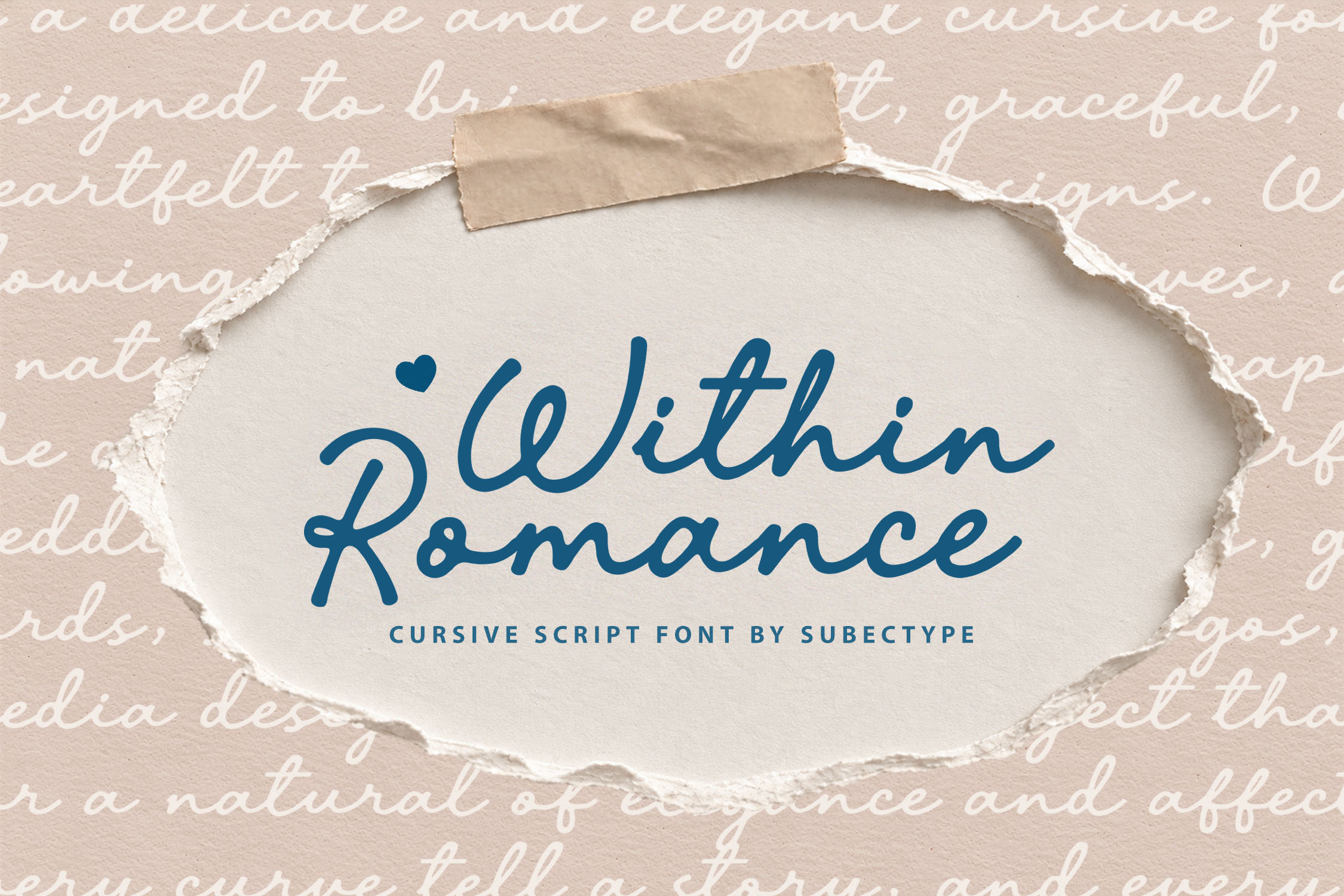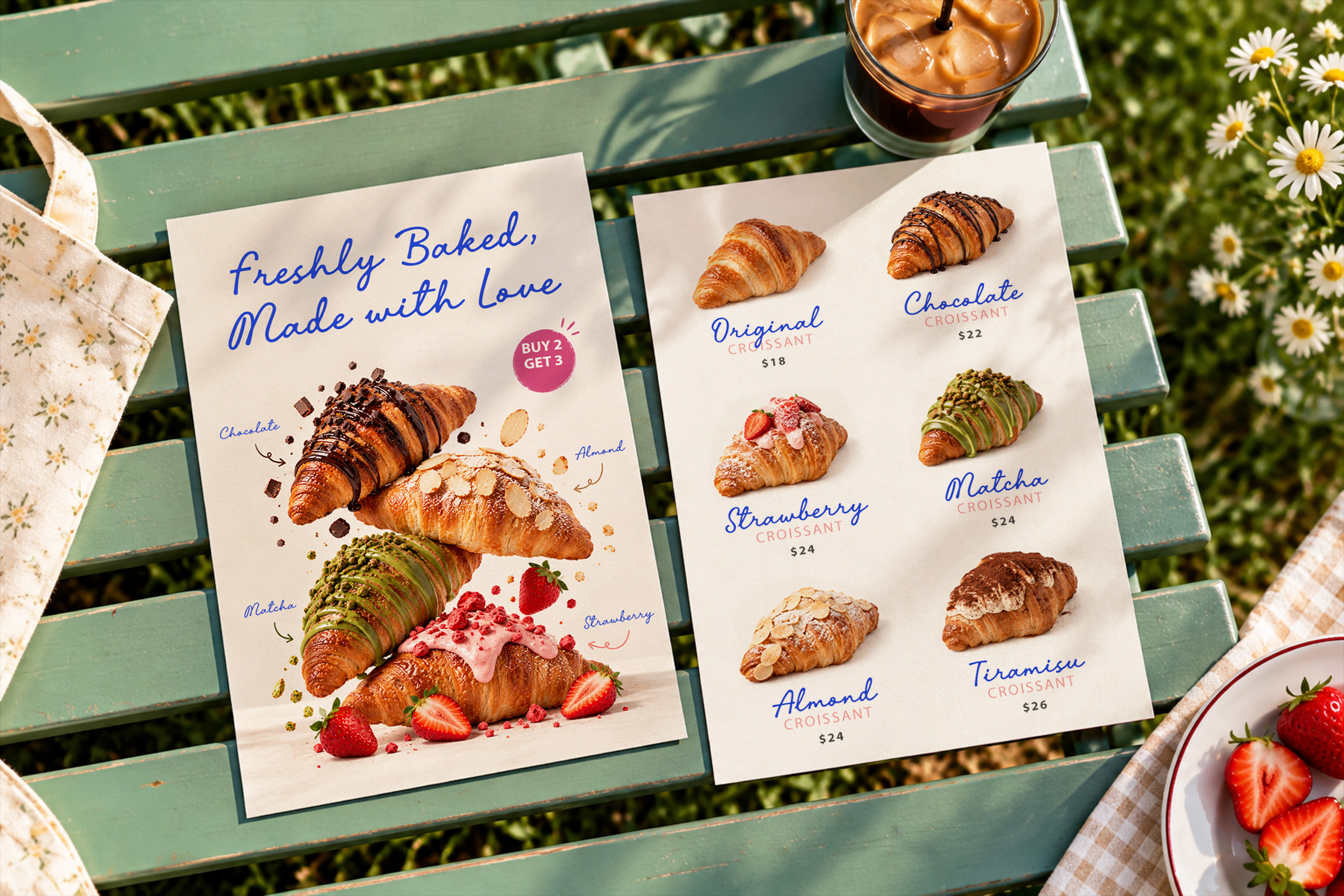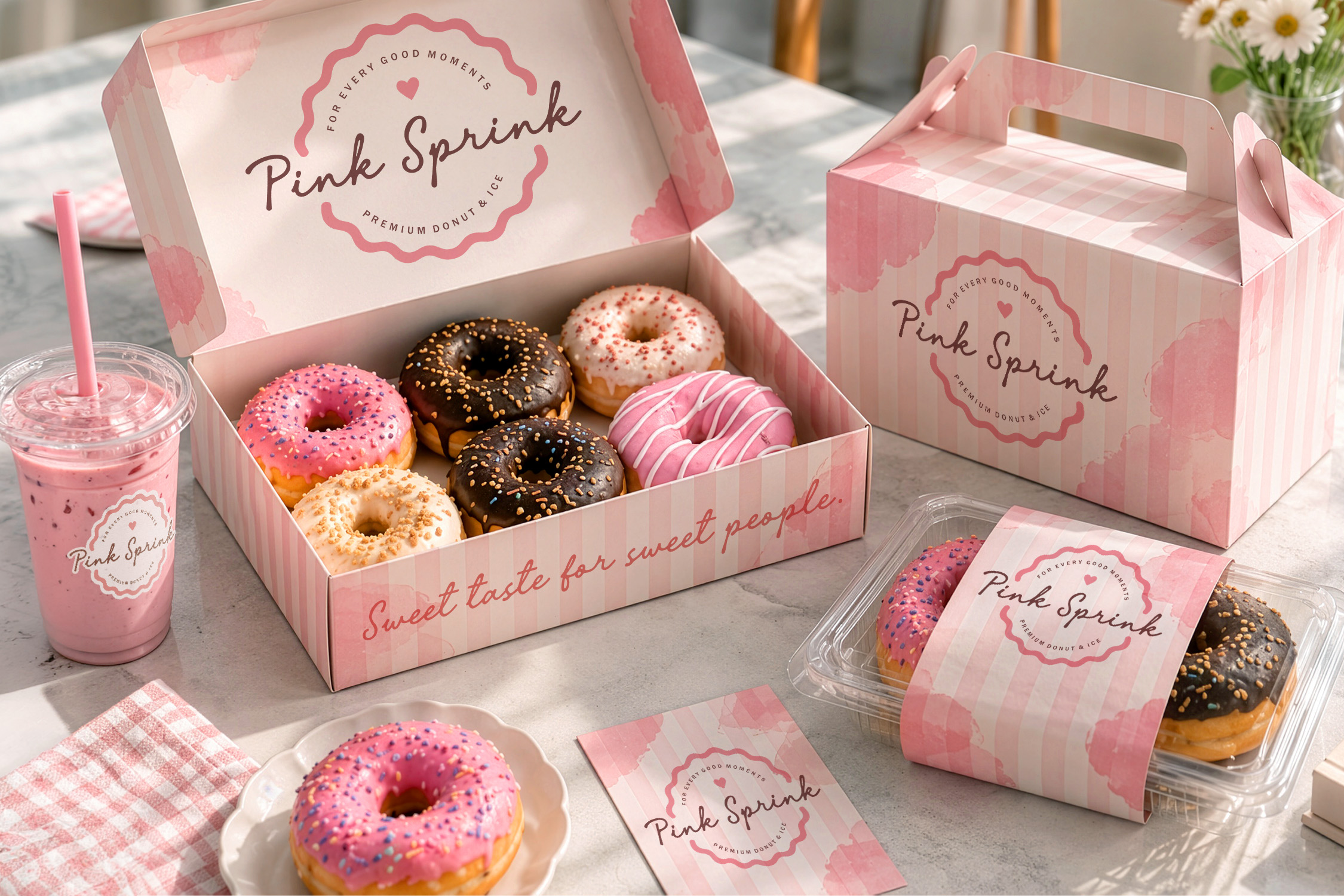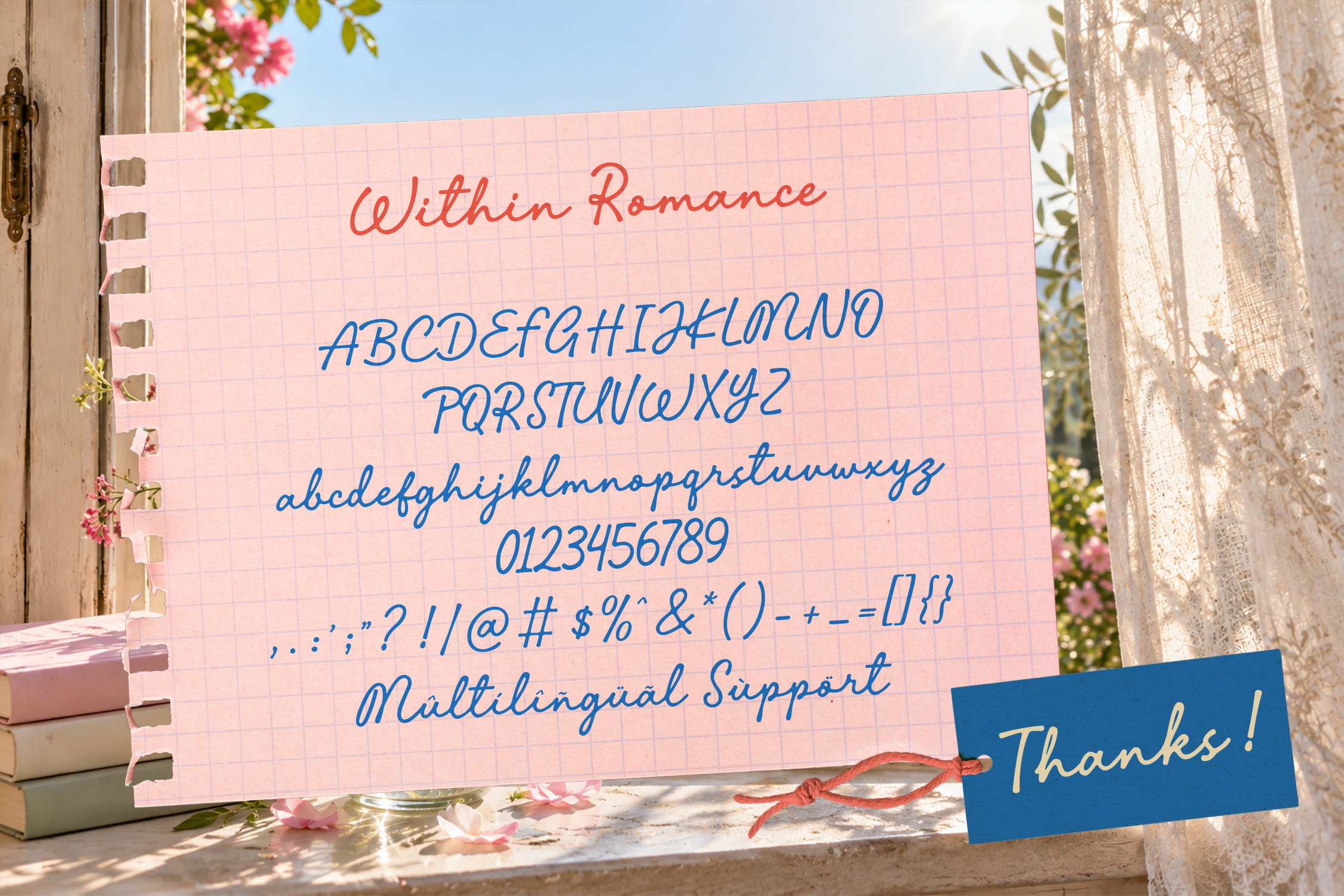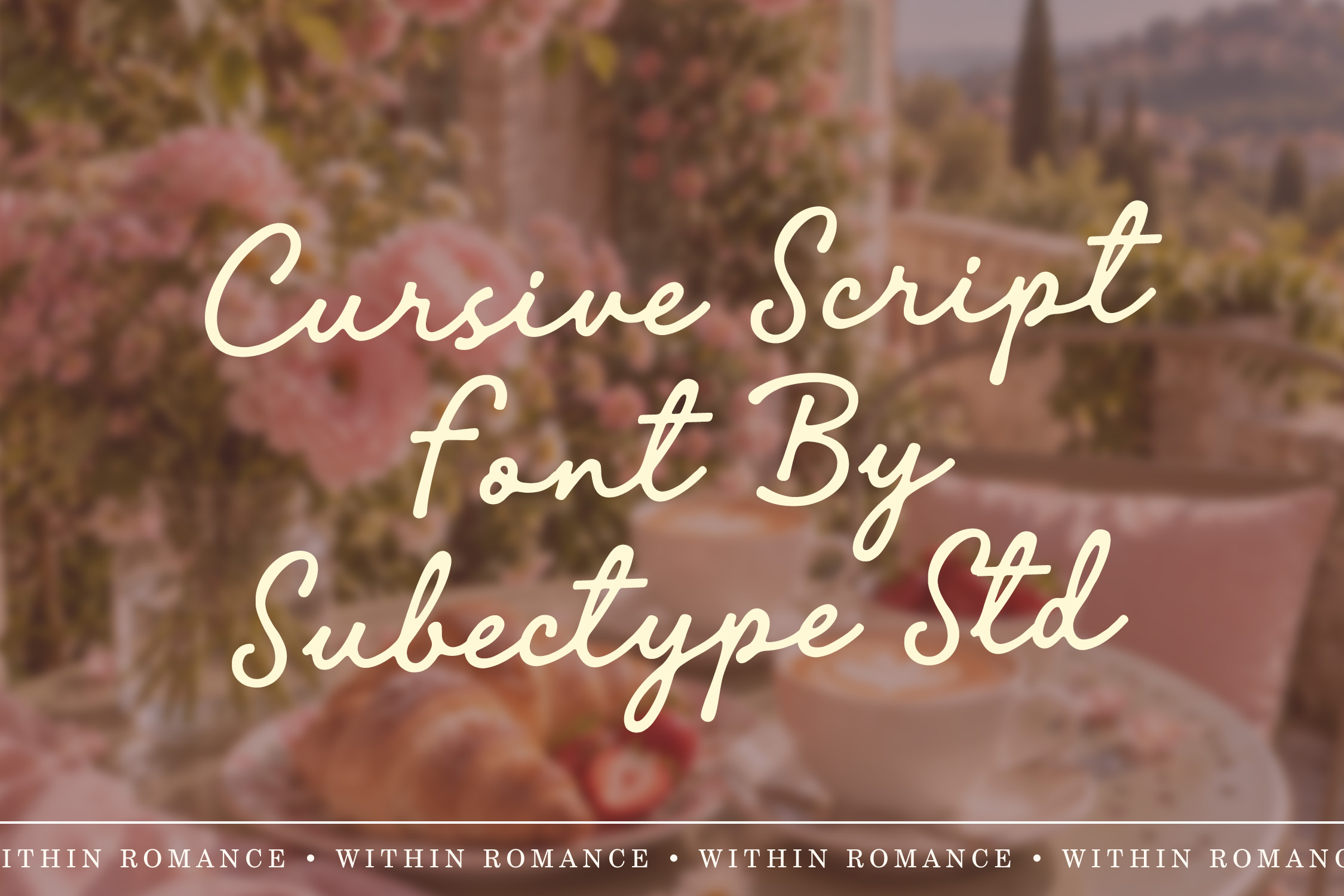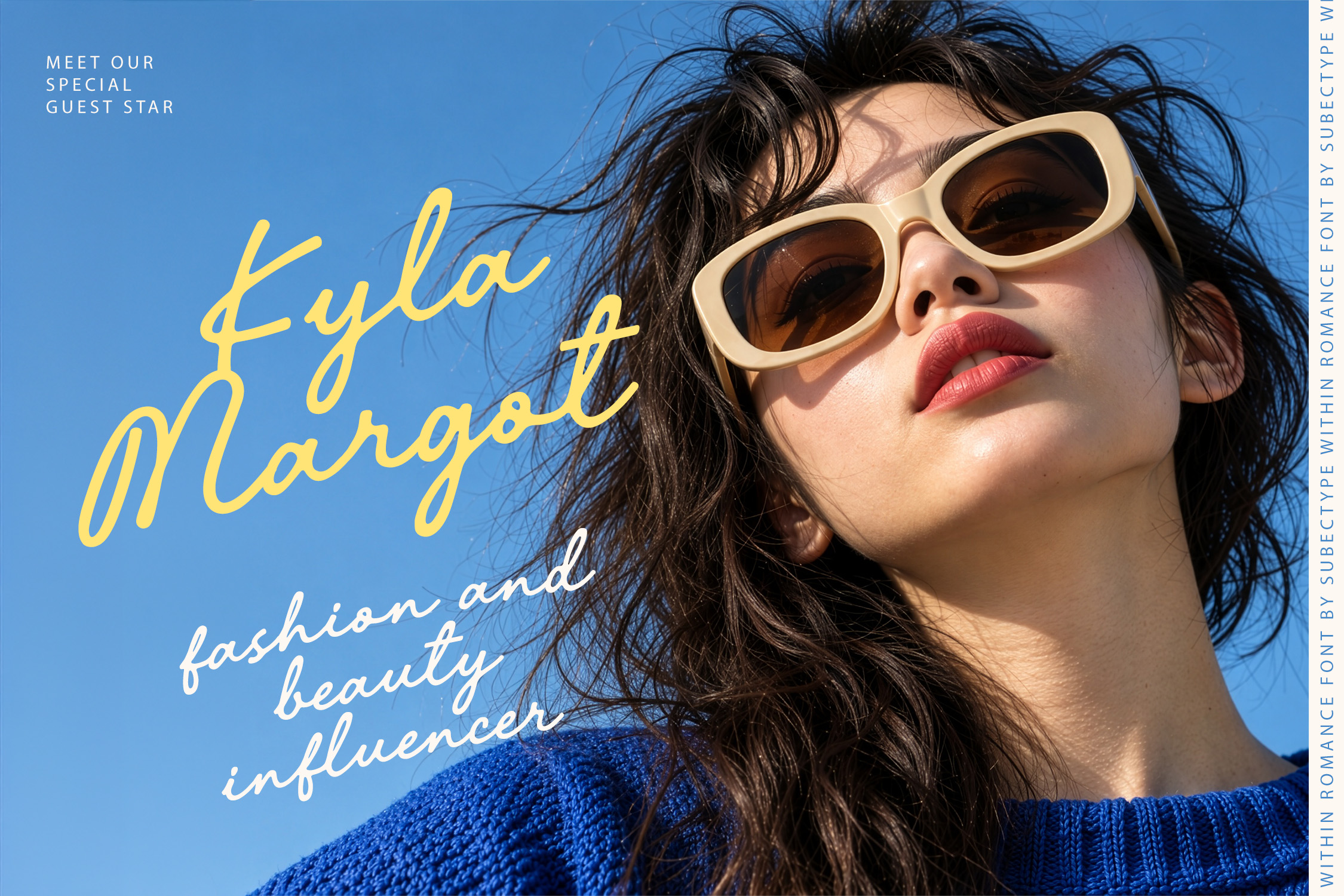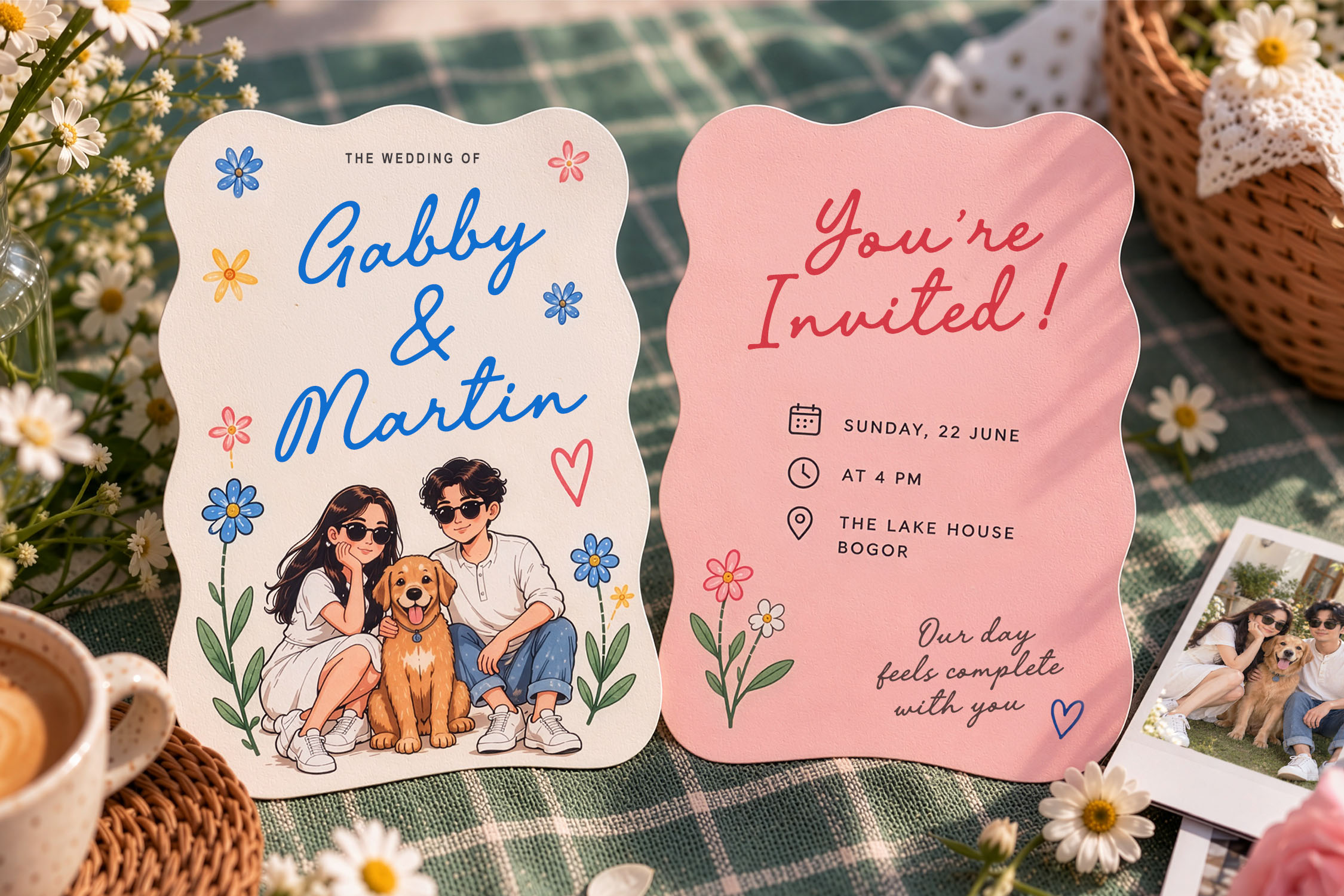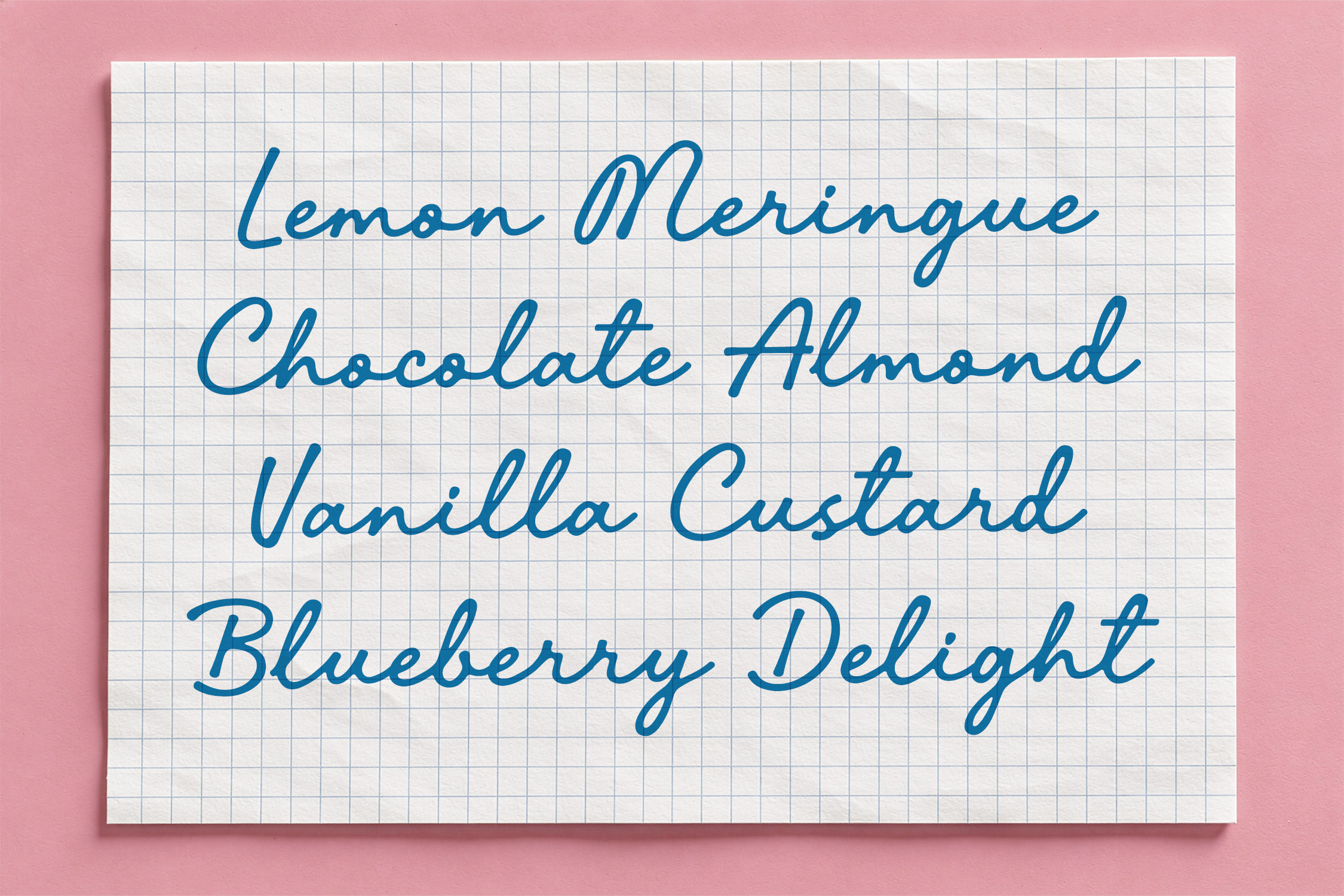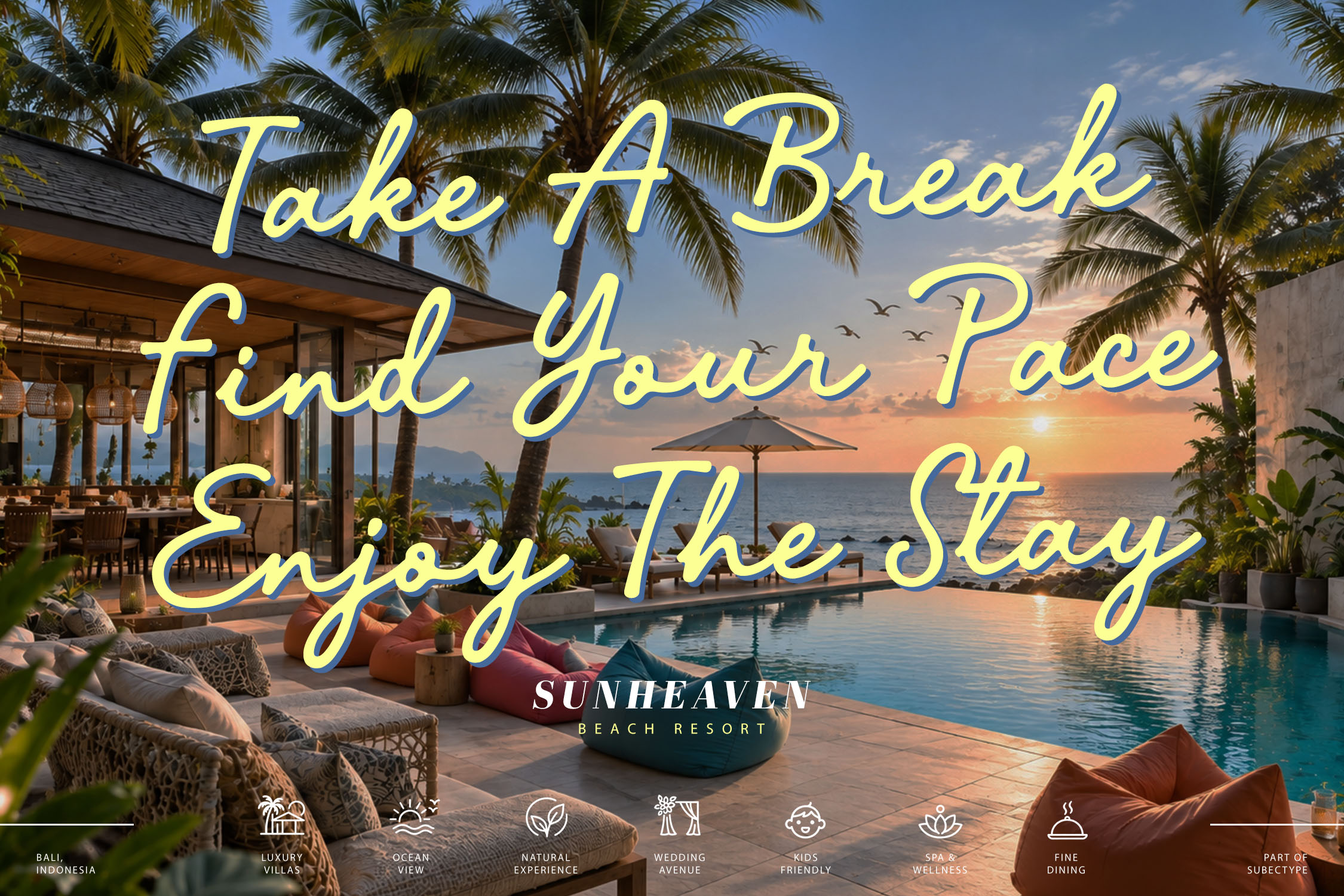
- Within Romance – Cursive Script Font
Within Romance
Within Romance is a beautiful cursive signature script font inspired by the effortless charm of handwritten notes, flowing ink, and personal signatures. With its rounded letterforms, smooth curves, and natural handwritten strokes, this font brings a warm, romantic, and authentic feel to every design.
Designed with an elegant yet casual character, Within Romance blends the look of an inked signature with the softness of modern handwritten typography. Its flowing connections and organic shapes make it feel personal, expressive, and beautifully imperfect.
Multilingual Support